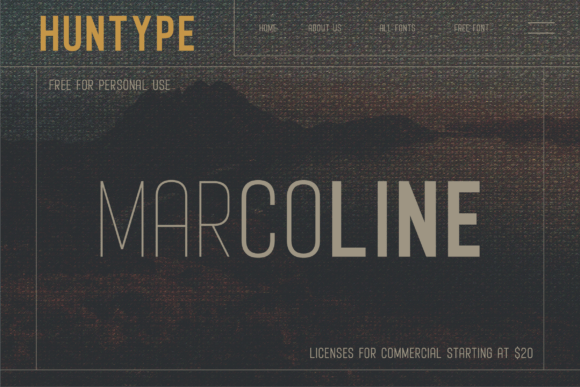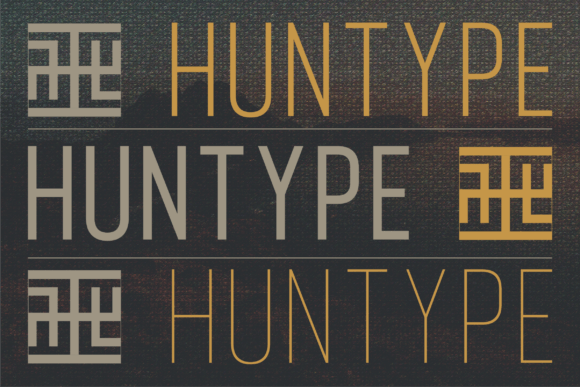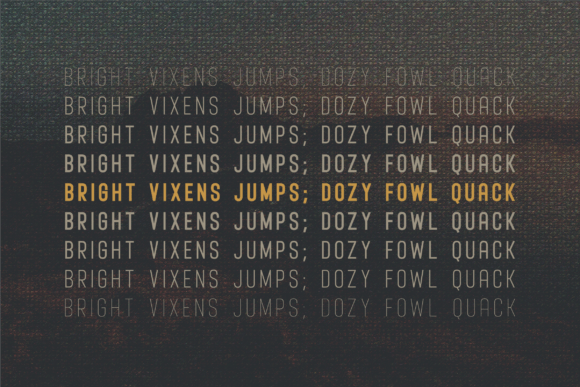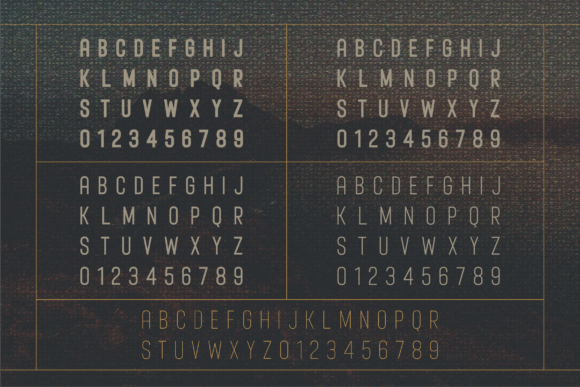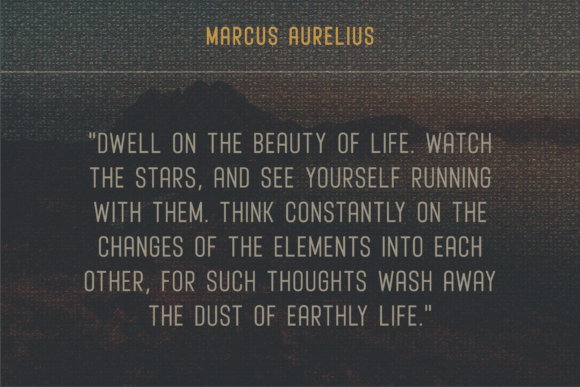
Introduction to Marcoline Font
Remember that moment when you finally found the perfect font to elevate your creative project? The one that brings your vision to life, making it stand out from the crowd? For designers, finding the right font can be a game-changer. And, we’re excited to introduce you to a game-changing font family – Marcoline Font. This meticulously crafted font family embodies elegance, modernity, and versatility, making it the ultimate design resource for any creative endeavor.
With its five distinct weights, Marcoline Font offers a wide range of creative possibilities, from subtle and delicate touches to bold and impactful statements. Whether you’re working on a high-quality project with a transparent background or searching for a free download to enhance your design, this font family’s seamless blend of sophistication and contemporary style ensures your projects will shine with distinction.
Key Features of Marcoline Font
- High-quality design: Marcoline Font is designed to provide a unique and elegant look for your creative project.
- Transparent background: This font features a transparent background, allowing for easy layering and composition.
- Size and resolution: The font is designed to be scalable, with a resolution of 300 DPI for high-quality printing.
- Unique characteristics: Marcoline Font features a distinctive and intricate design, making it perfect for creative projects that require a touch of elegance.
- Design resource: This font is an excellent resource for designers, artists, and writers who need a high-quality font for their creative project.
Honest Review: Marcoline Font
As a designer, I’m always on the lookout for high-quality design resources that can elevate my creative projects. The Marcoline Font is one such resource that I’ve had the pleasure of working with.
Here are some things that work well with the Marcoline Font:
- ✨ Unique and modern design aesthetic that adds a touch of sophistication to any design project.
- ✨ Highly legible and clear typography, making it perfect for body text or headlines.
However, I did encounter some limitations with the Marcoline Font:
- ⚠️ Limited character set, which may not be suitable for projects that require a wide range of characters.
- ⚠️ Transparent background can be a bit tricky to work with, especially when designing for print materials.
Overall, the Marcoline Font is a great addition to any designer’s toolkit. Its unique design and high-quality typography make it perfect for creative projects. While it may have some limitations, the benefits far outweigh the drawbacks. If you’re looking for a stylish and modern font to elevate your designs, the Marcoline Font is definitely worth checking out.
Getting the Most Out of Marcoline Font
To get the most out of the Marcoline Font, use it on a high-quality design project with a transparent background. This will allow the font to shine and add a touch of elegance to your creative project.
The Marcoline Font is perfect for various design projects, including:
Wedding invitations
Business cards
Posters
Compared to Marcoline Font, Lobster Font has a more playful and whimsical feel, making it ideal for creative projects that require a sense of fun and adventure.